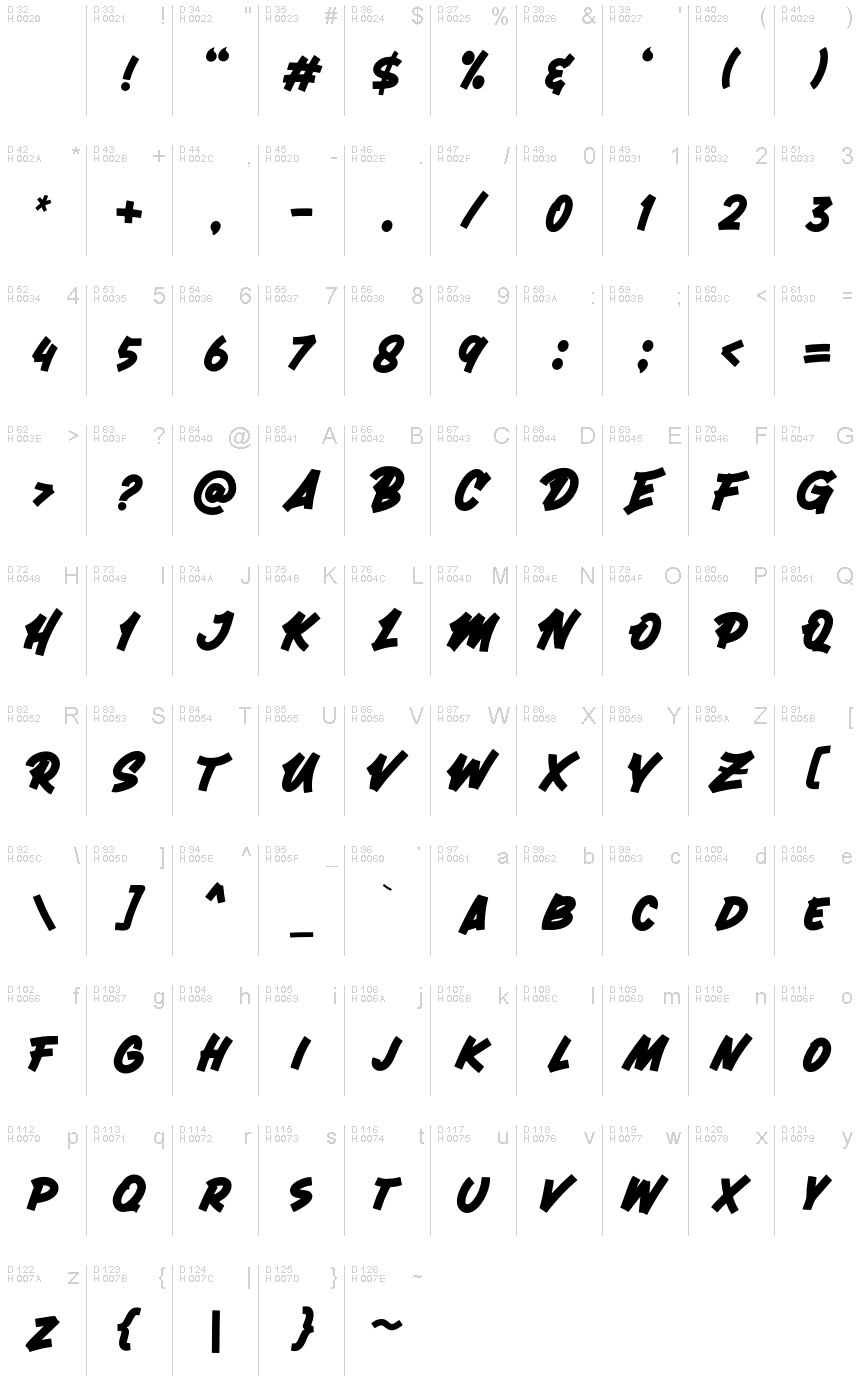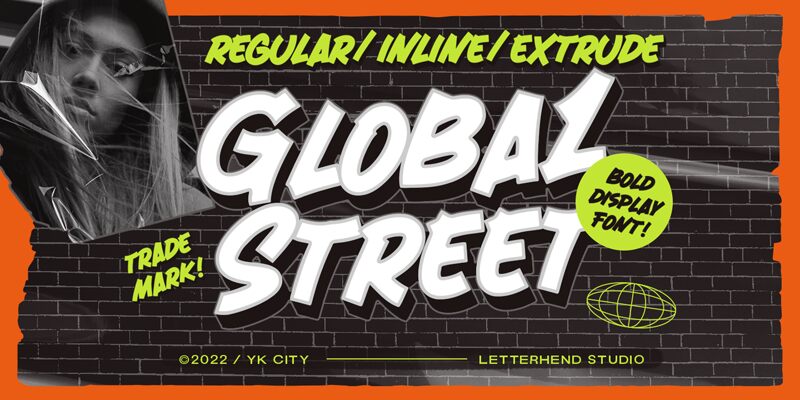
Global Street is a bold, brush-inspired font that exudes the gritty energy of urban landscapes. Crafted by Letterhend Studio, this typeface seamlessly blends the rawness of street art with a refined, modern aesthetic. The bold, expressive strokes convey a sense of movement and dynamism, making it an ideal choice for branding, packaging, and editorial design.
Global Street's versatility shines through its ability to seamlessly transition between display and body text, ensuring a cohesive visual experience across a wide range of applications.
Its versatility and striking visual impact make Global Street a compelling choice for designers seeking to infuse their work with a touch of urban edge and creative flair.